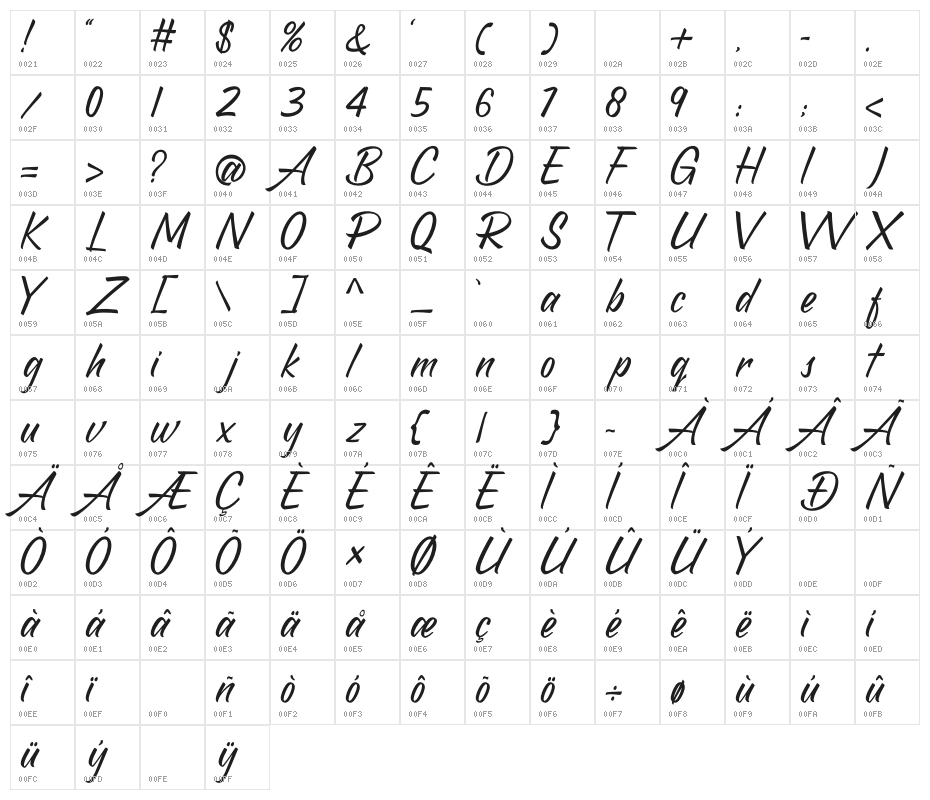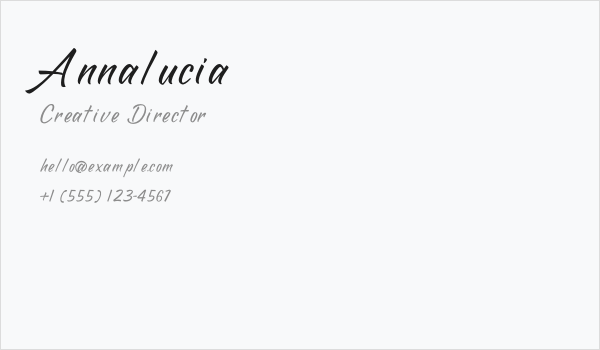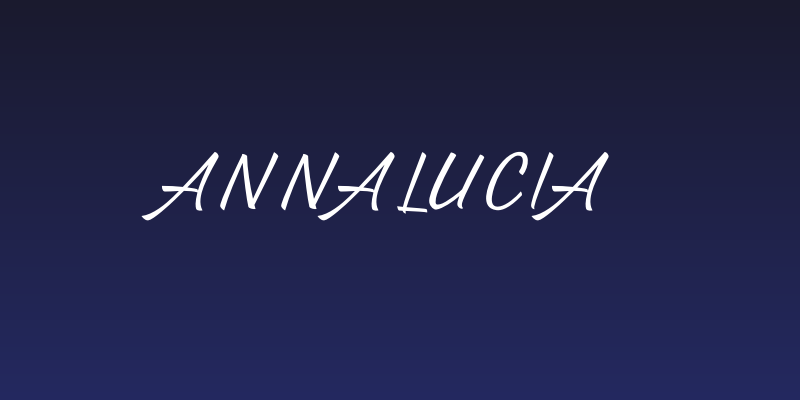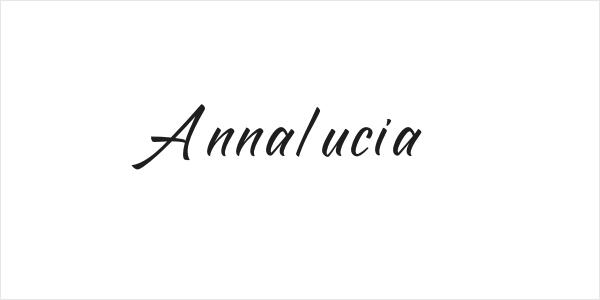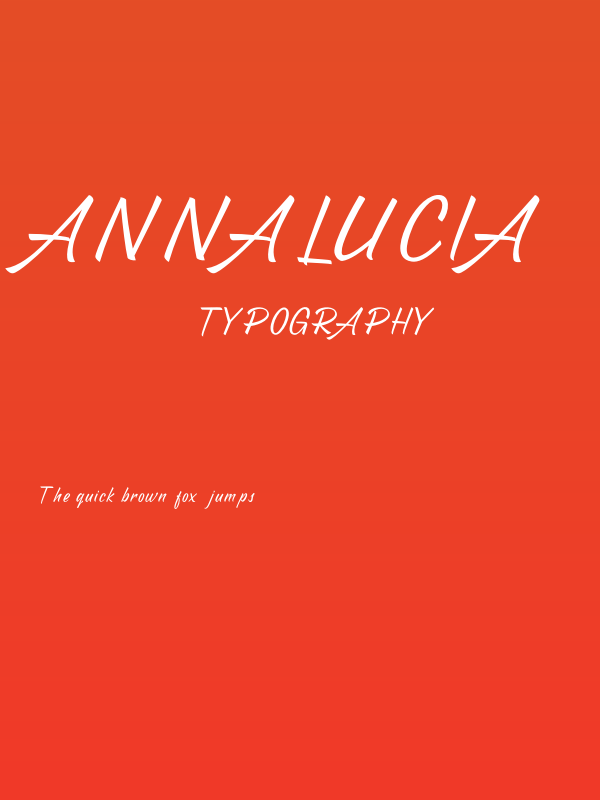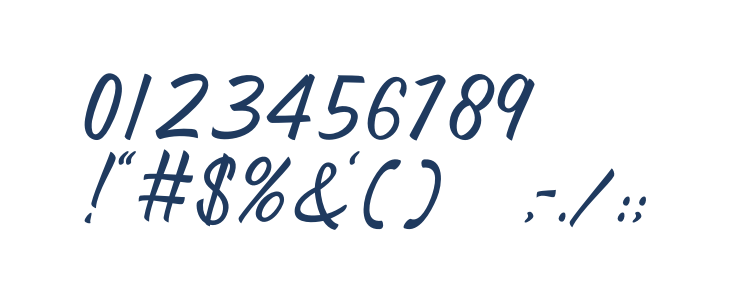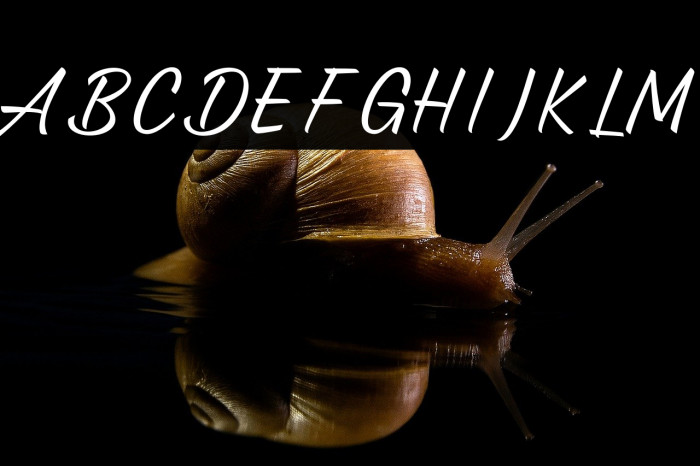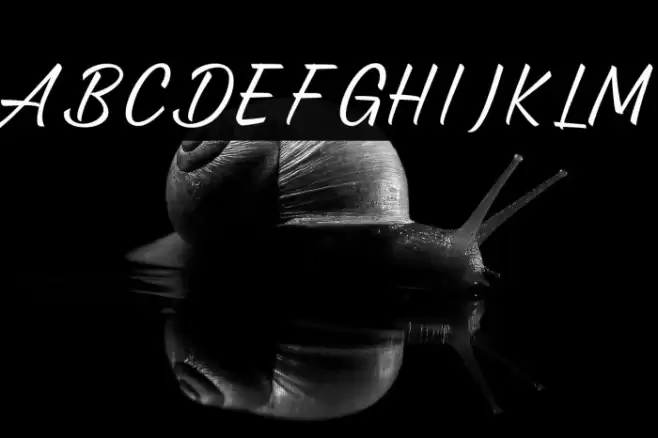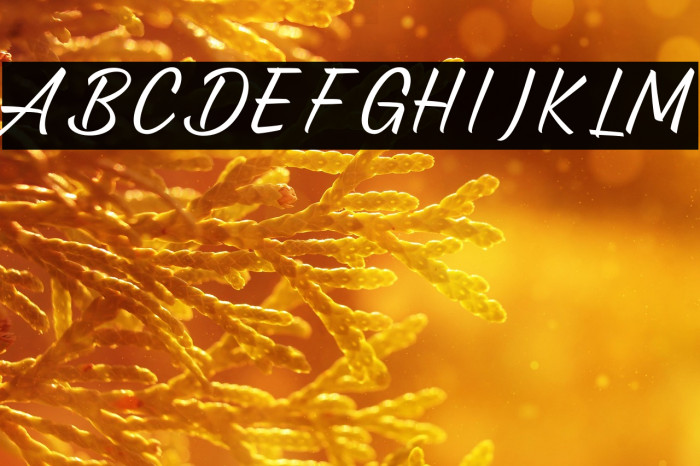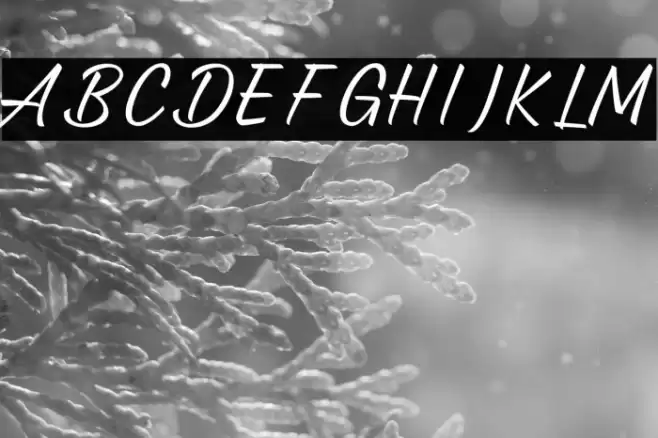
Annalucia Font
This font exudes a dynamic and fluid style, characterized by its cursive, handwritten appearance. The letters are slightly slanted, giving a sense of motion and elegance. The uppercase letters are bold and prominent, while the lowercase letters maintain a consistent flow, enhancing readability. The numerals are clear and distinct, matching the overall aesthetic of the alphabet. Special characters are well-integrated, maintaining the font's cohesive look. The strokes are moderately thick, providing a balanced contrast that ensures visibility without overwhelming the design.
| Overall Style | Elegant, Fluid, Handwritten |
| Use Case | Invitations, Personal Branding, Artistic Projects |
| Proposed Projects | Ideal for wedding invitations, greeting cards, personal branding, and artistic projects requiring a personal touch. |